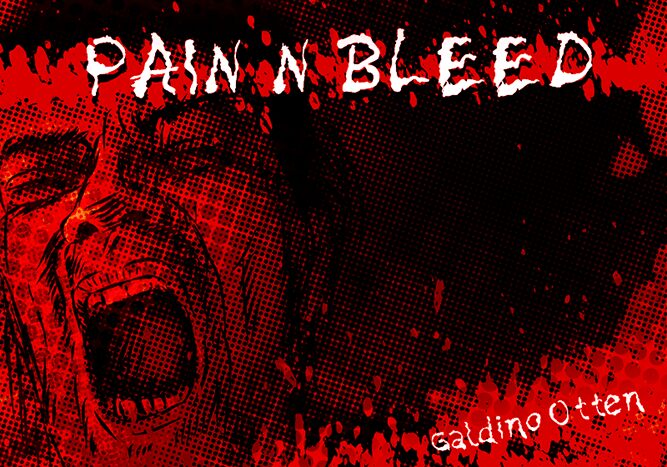
PainNBleed
Pain N Bleed is a bold, striking display font that immediately commands attention. Its jagged, uneven letterforms evoke a sense of raw, visceral energy, evoking the gritty, unsettling aesthetics of horror and dark fantasy genres. The font's irregular, bleeding edges lend it an ominous, unsettling quality, making it well-suited for horror-themed designs, heavy metal album covers, and other projects where a sense of foreboding and intensity is desired.
With its strong visual impact and versatile applications, Pain N Bleed is a font that is sure to leave a lasting impression on viewers.